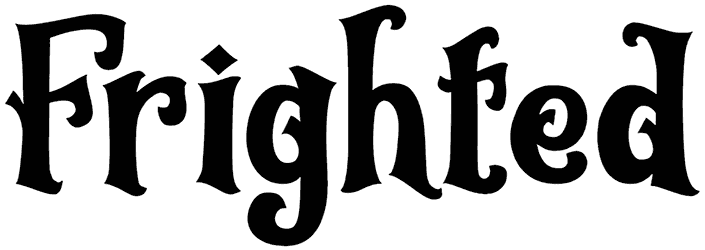
Frighted Font
An outward with a dead and chilling vibe would make your design more exciting and haunting. Frighted is a Halloween font with cool letters that can be matched with any eerie design. Place this whimsical font on your intended projects, for example, horror games, movie posters, comics, or the like, and create a whimsical mood.